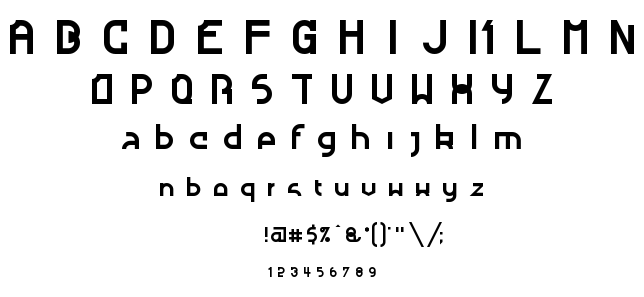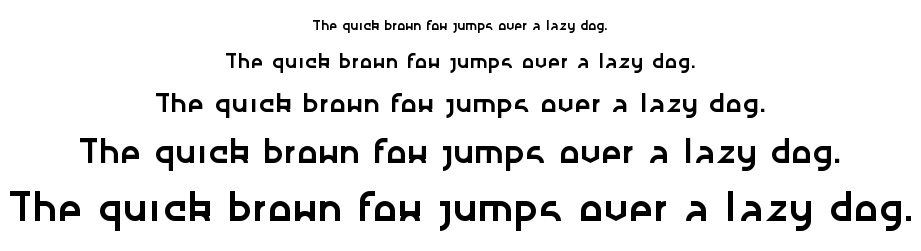
Nougatine is a titling font inspired by the smell of freshly baked cookies. Delivered with 380 glyphs, many ligatures and a panel of alternative letters, it brings to you the power of making better combinations.
Voici Nougatine, une fonte de titrage inspirée par de petites friandises.
Elle possède 380 glyphes, de nombreuses ligatures et toute une panoplie de lettres alternatives.